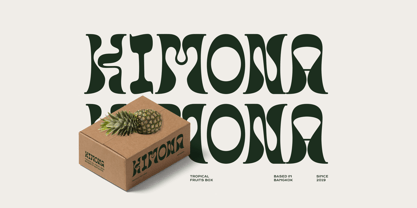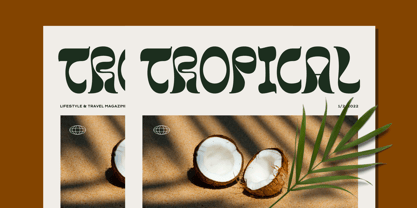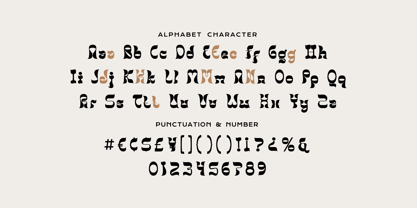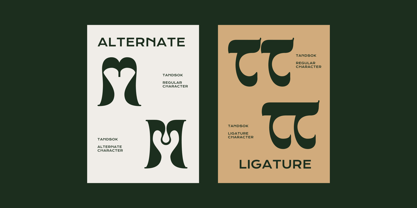
Tandsok
The Tandsok Font Family was designed by Aulia Savira Putri and published by Imoodev. Tandsok contains 1 styles. More about this family
Tandsok is a decorative display typeface characterized by curvy letterforms with a retro-psychedelic feel. Tandsok appears experimental yet cohesive, embracing a free-spirited aesthetic that feels both nostalgic and modern.
It is ideal for branding (especially in the food, fashion, or eco-friendly product industries), poster, album covers, packaging design, social media graphics, and more.